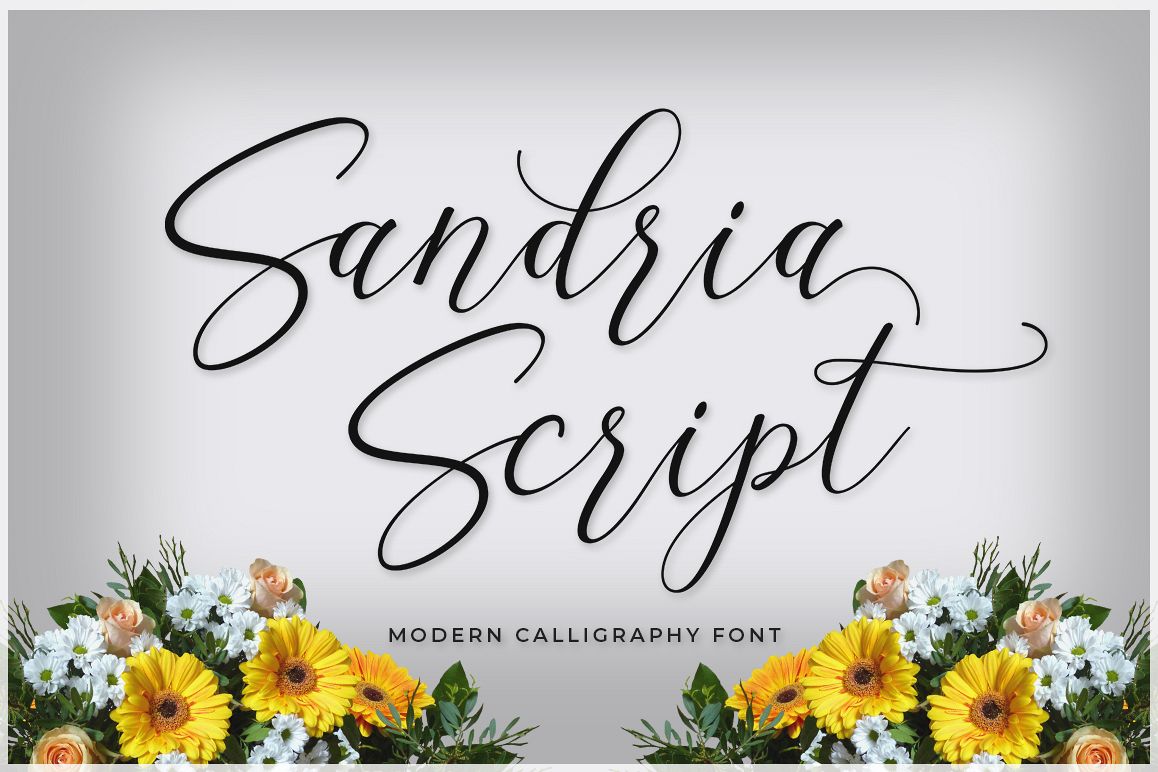
Sandria Script
Introducing the latest styles Sandria Script, A sweet calligraphy font, casual and dynamic with a dancing baseline, This font can be used easily and simply, perfect for Branding, Logos, Greeting Cards, Wedding Stationery, Quotes etc.